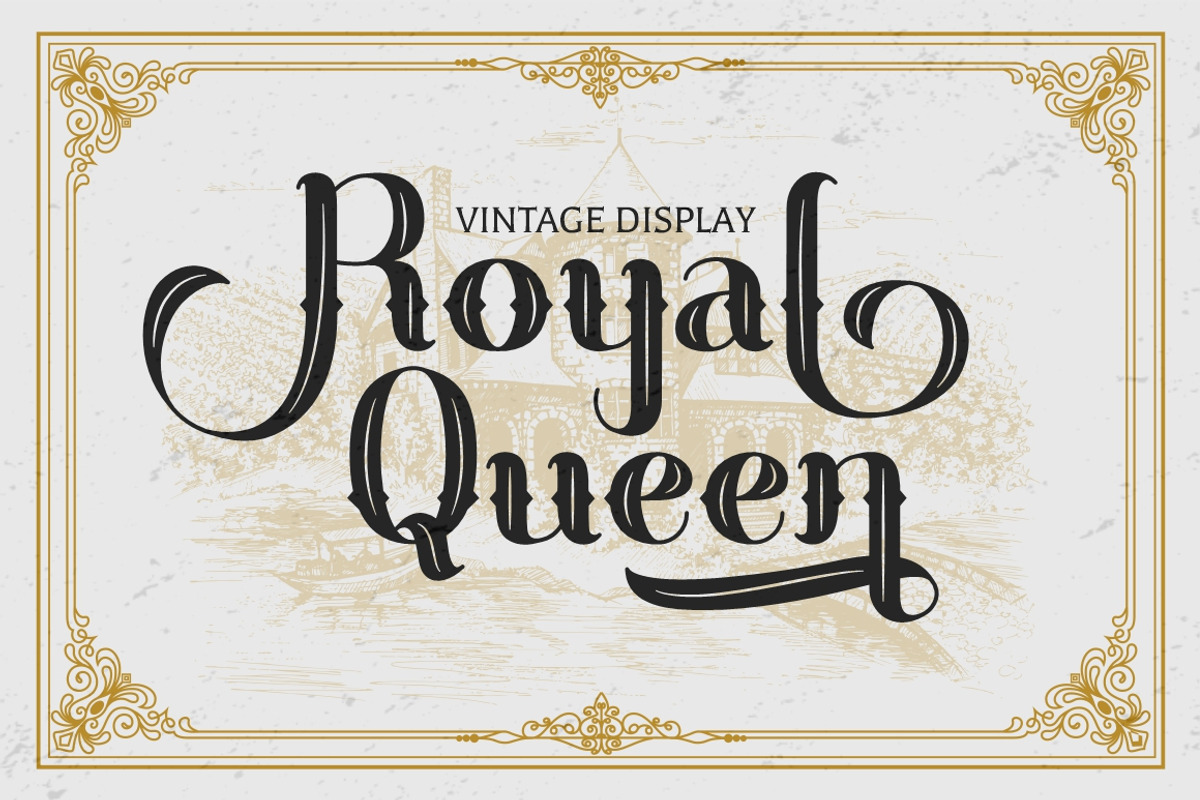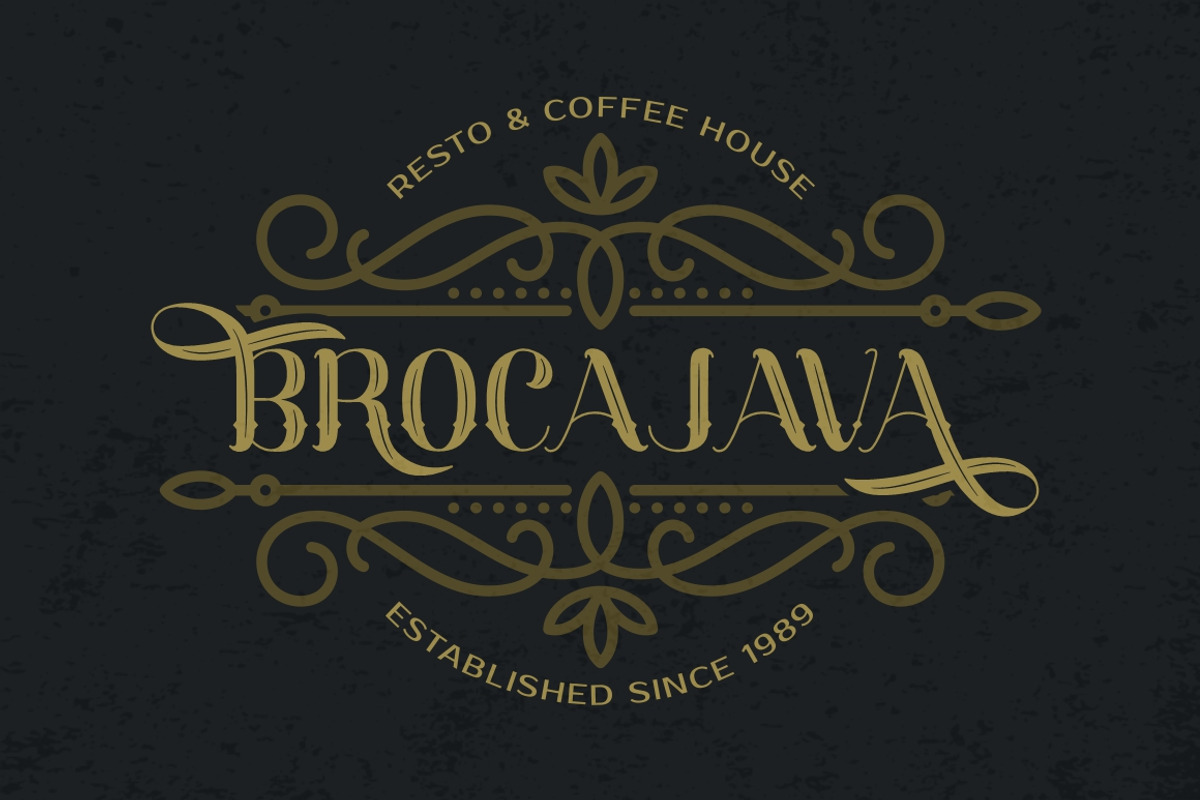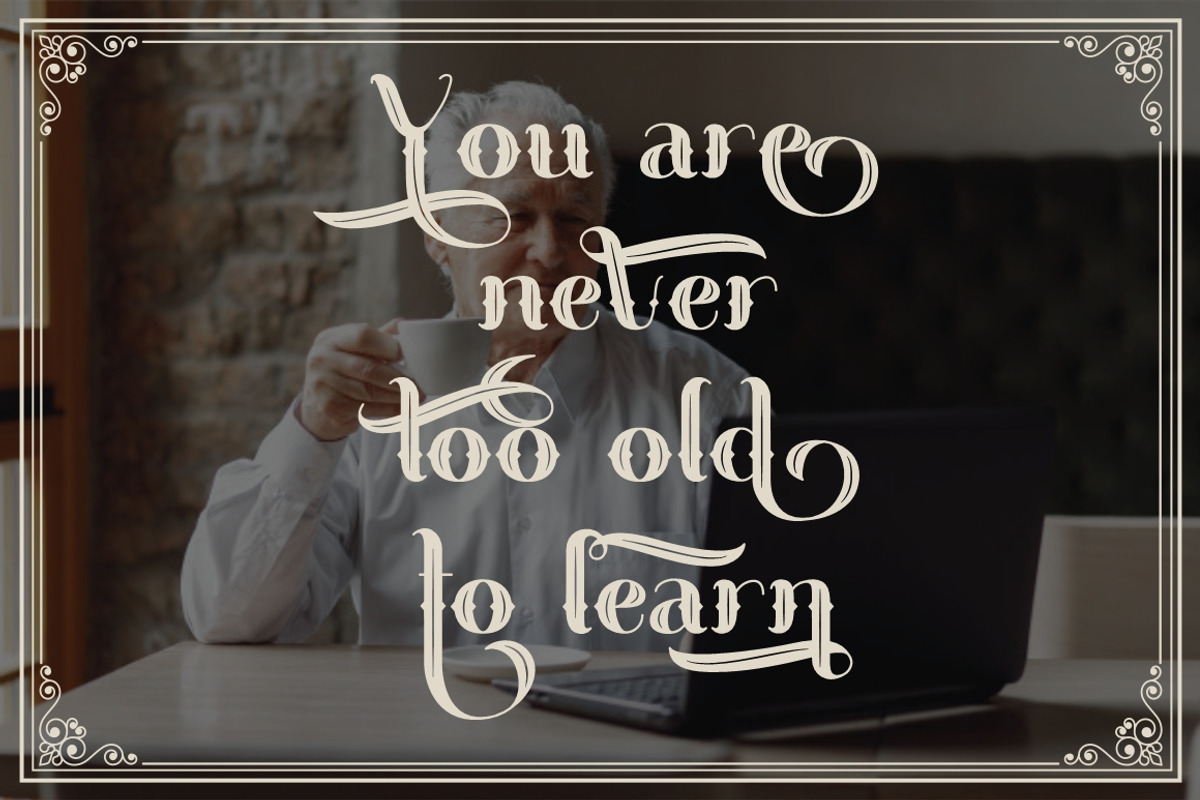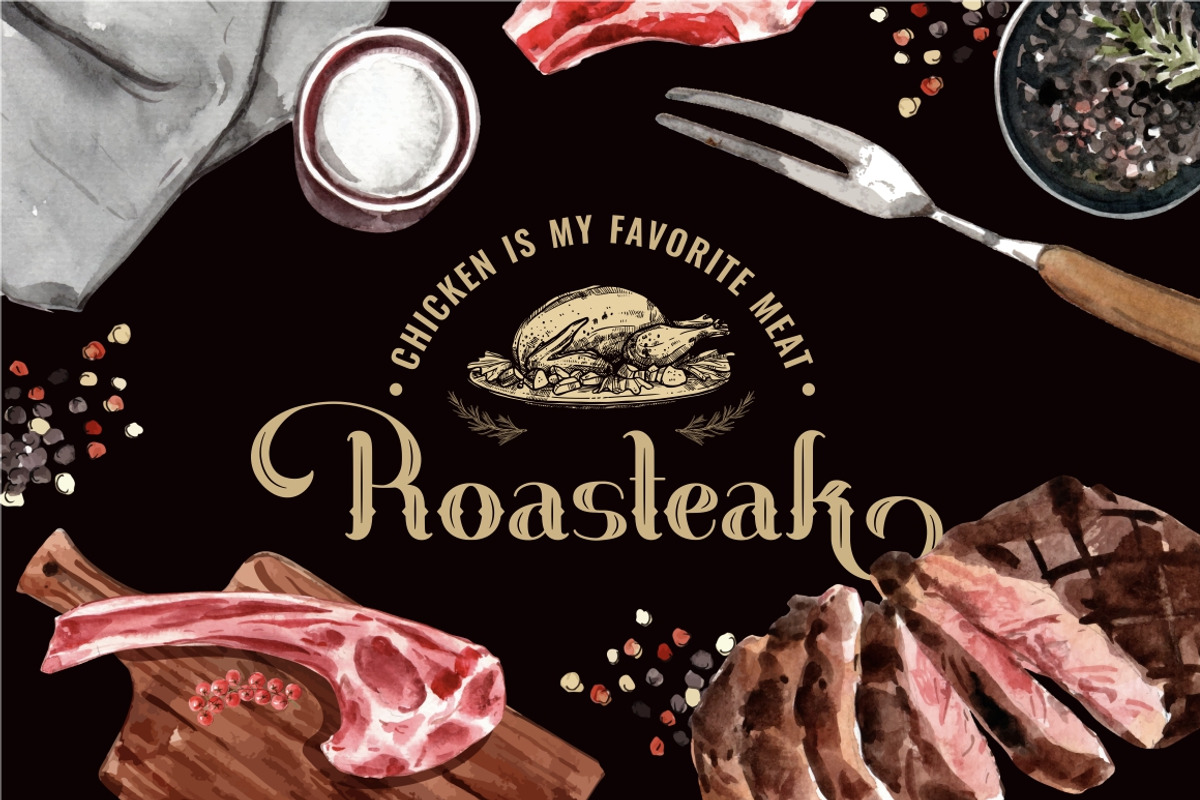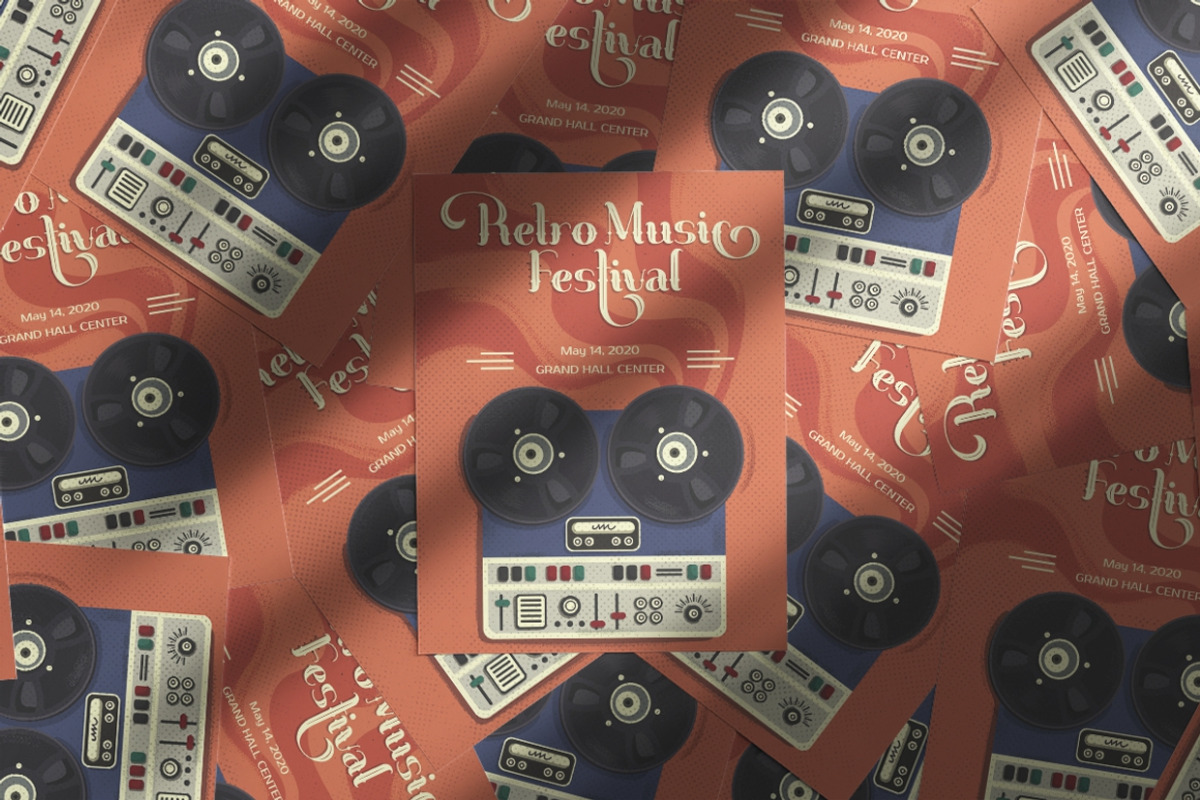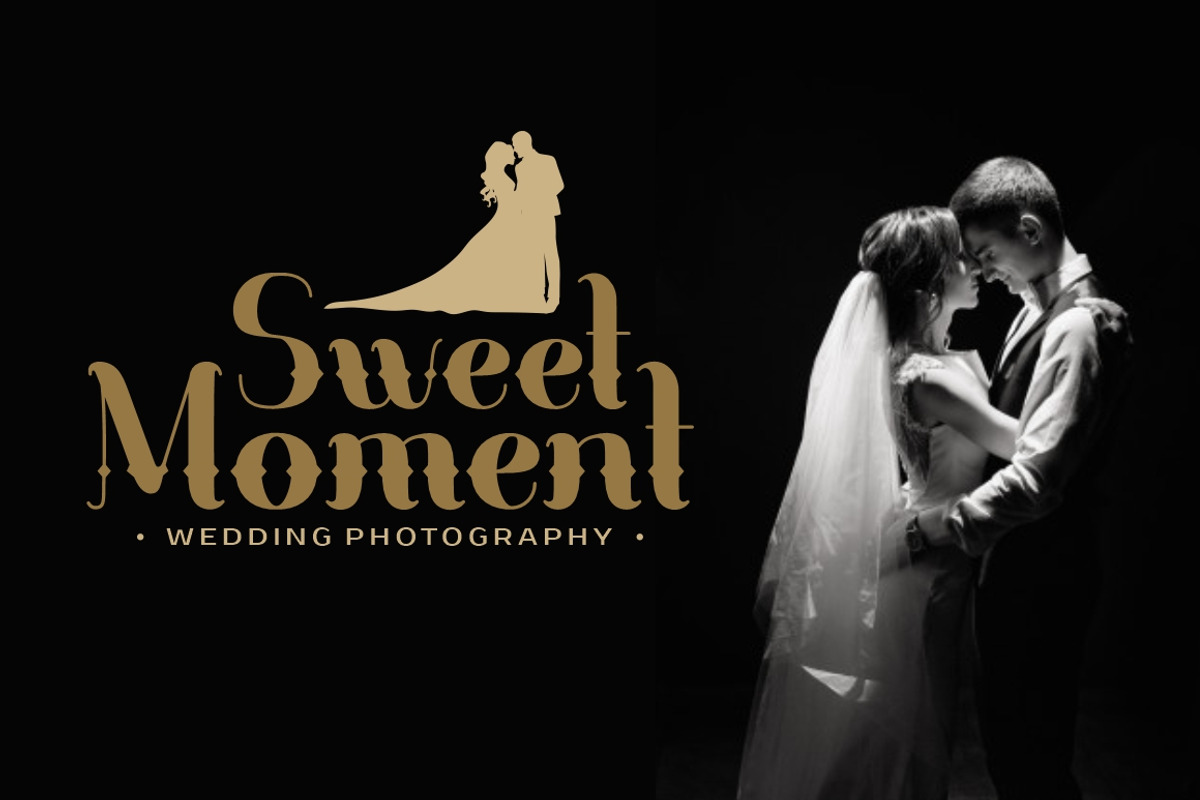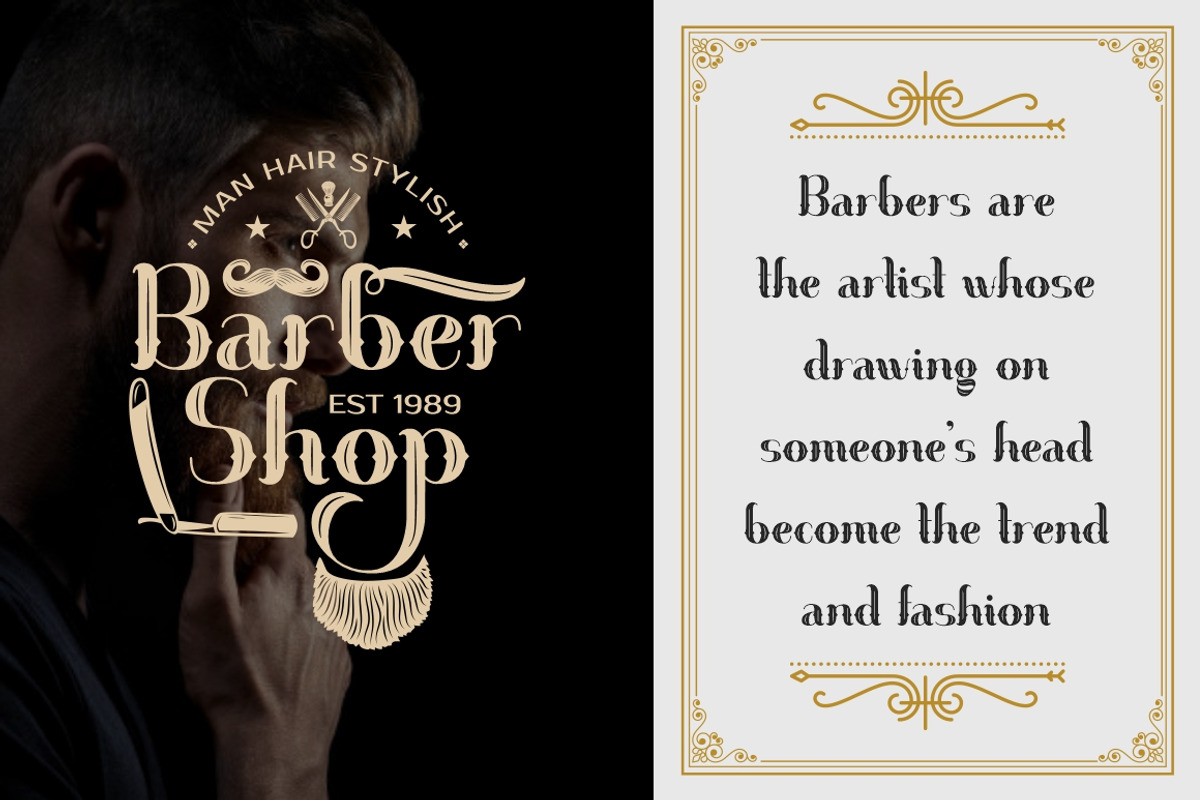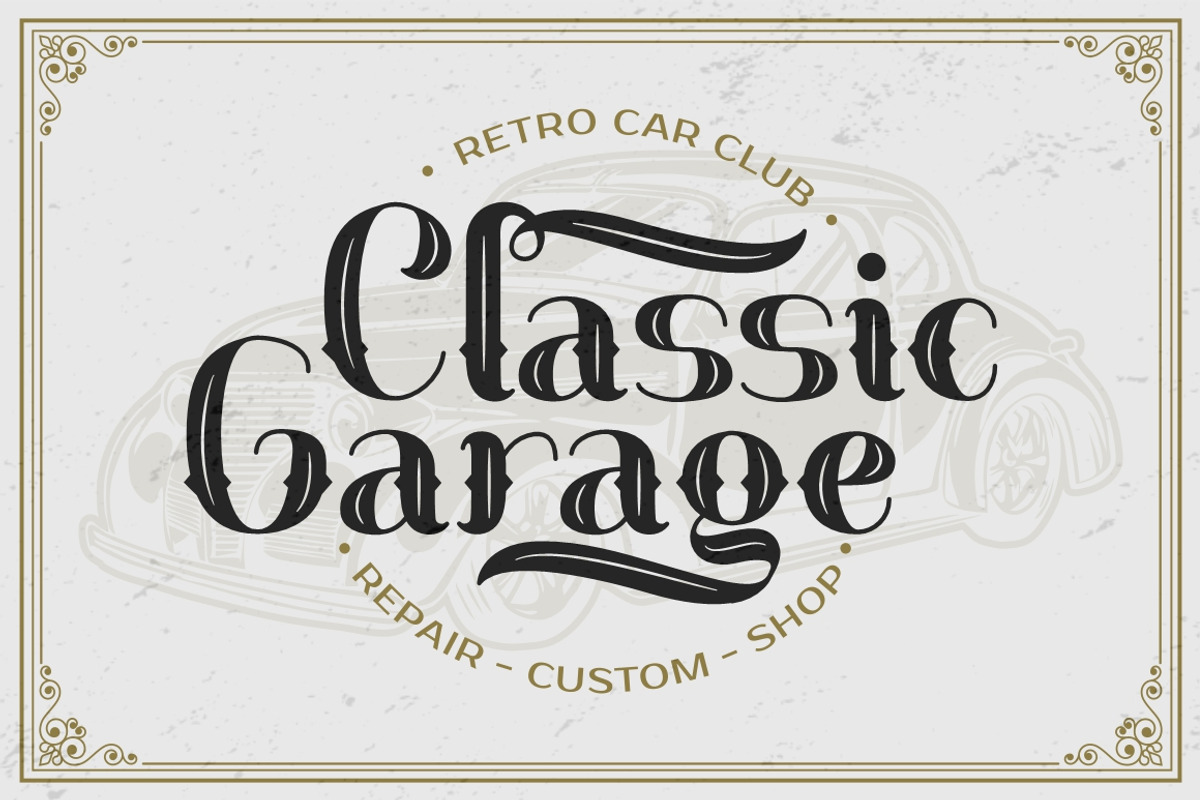
Royal Queen - Vintage Display Font
Royal Queen is a display vintage typeface. Come up with decorative and clean style. This font inspired by the classic letters and vintage label. Royal Queen is great for any kind of display purpose from logos, Tshirt, apparel, quote, handwritten quotes, product packaging, tittle header, poster, merchandise, social media, labels, branding & greeting cards. This font is also support multi language.